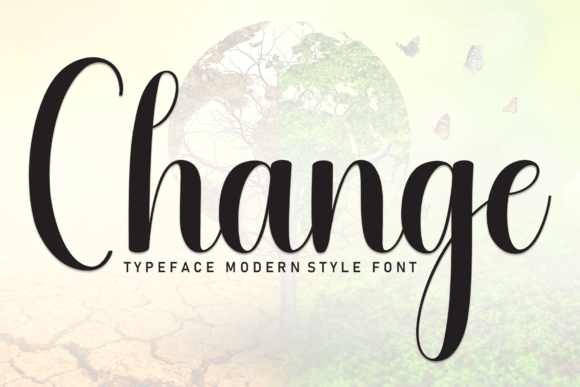
Adding a Personal Touch with Change Font
As designers, we’ve all been there – staring at a blank canvas, trying to bring our creative vision to life. It’s the moment when the perfect font can make all the difference. For me, it was a wedding invitation design that needed a touch of warmth and personality. That’s when I discovered Change Font, a sweet and friendly handwritten font that instantly elevates any design.
Change Font is perfect for adding a casual, fresh feel to your designs. Its gentle curves and playful strokes make it ideal for wedding invitations, cards, or any other project that requires a lovely touch. Whether you’re a seasoned designer or just starting out, Change Font is a valuable addition to your toolkit.
Key Features of “Change Font”
Change Font Review
In PowerPoint, select the text you want to edit by clicking on it. Then, go to the ‘Home’ tab and click on the ‘Font’ dropdown menu to select your desired font style and size. In Microsoft Word, select the text you want to edit and go to the ‘Home’ tab and click on the ‘Font’ dropdown menu to make the necessary adjustments.
Tips for Getting the Most Out of Change Font
Experiment with different font styles and sizes to find the perfect combination for your design. Use the ‘Font Pairing’ feature in Canva or the ‘Type’ menu in Adobe Photoshop/Illustrator to find matching font styles. Don’t be afraid to try out bold or italic font styles to add emphasis to your text.
Changing font is a crucial step in designing visually appealing documents, presentations, and graphics. Use it to create headings, titles, and body text that stand out and grab attention. Change font to match your brand’s style and consistency across all your marketing materials.
Alternatives to “Change Font” for Designers
Typography Presets
Typography presets allow designers to save and reuse custom font styles, including font family, size, weight, and color. This feature is useful when working on projects that require a consistent visual identity.
Compared to Change Font, Typography Presets offer more flexibility and control over font styles, making it a more powerful tool for designers who need to maintain brand consistency.